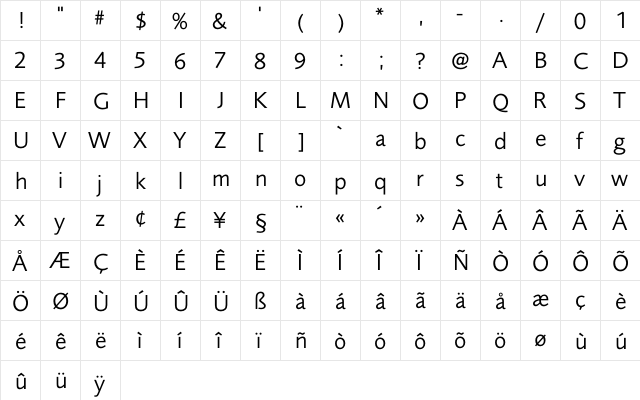
FoundrySans Book
Design Context for FoundrySans Typeface
FoundrySans takes a measured approach to typography — its balanced proportions and neutral character make it a reliable workhorse for both digital and print work.